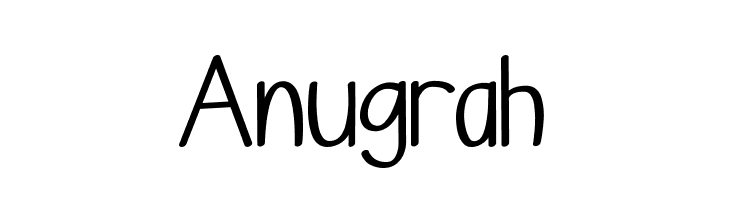
• Anugrah schriftart
A playful, handwritten-style font with rounded edges and uniform strokes.
• Anugrah schriftart
A playful, handwritten-style font with rounded edges and consistent stroke width.